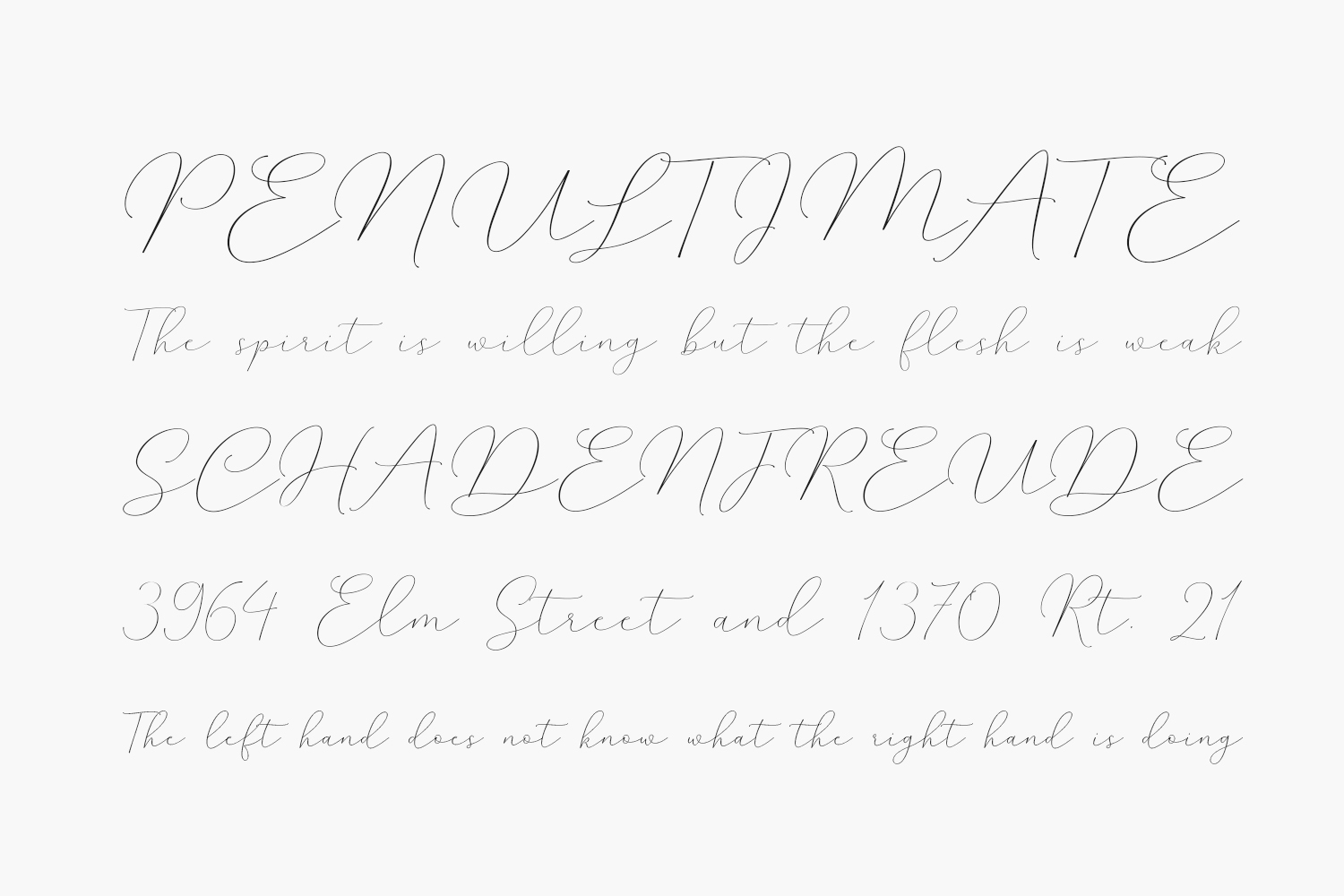
Mindline Script Free Font is a unique blend of classic modern calligraphy fonts with contemporary, sophisticated accents. It is perfect for weddings, events, invitations, and much more. Mindline Script Free Font was designed by Creative.Lafont and is free for personal use only. Please purchase the full version for commercial use.